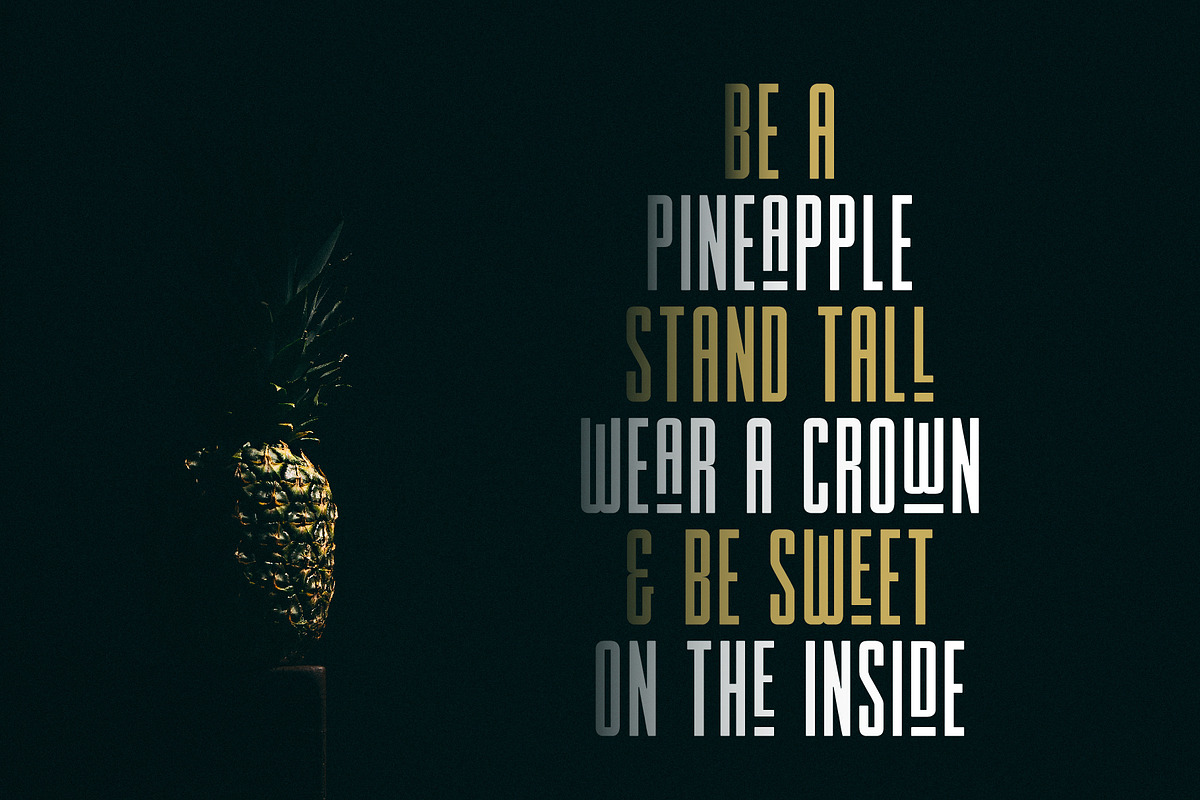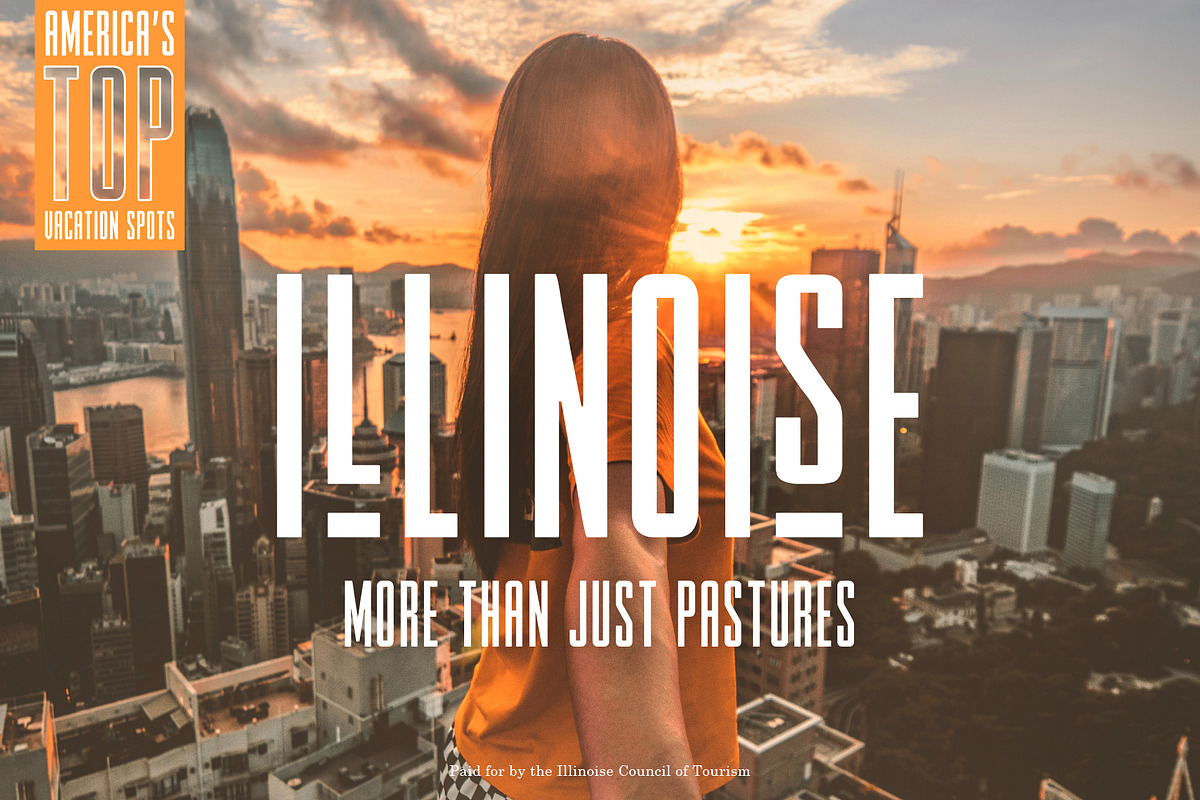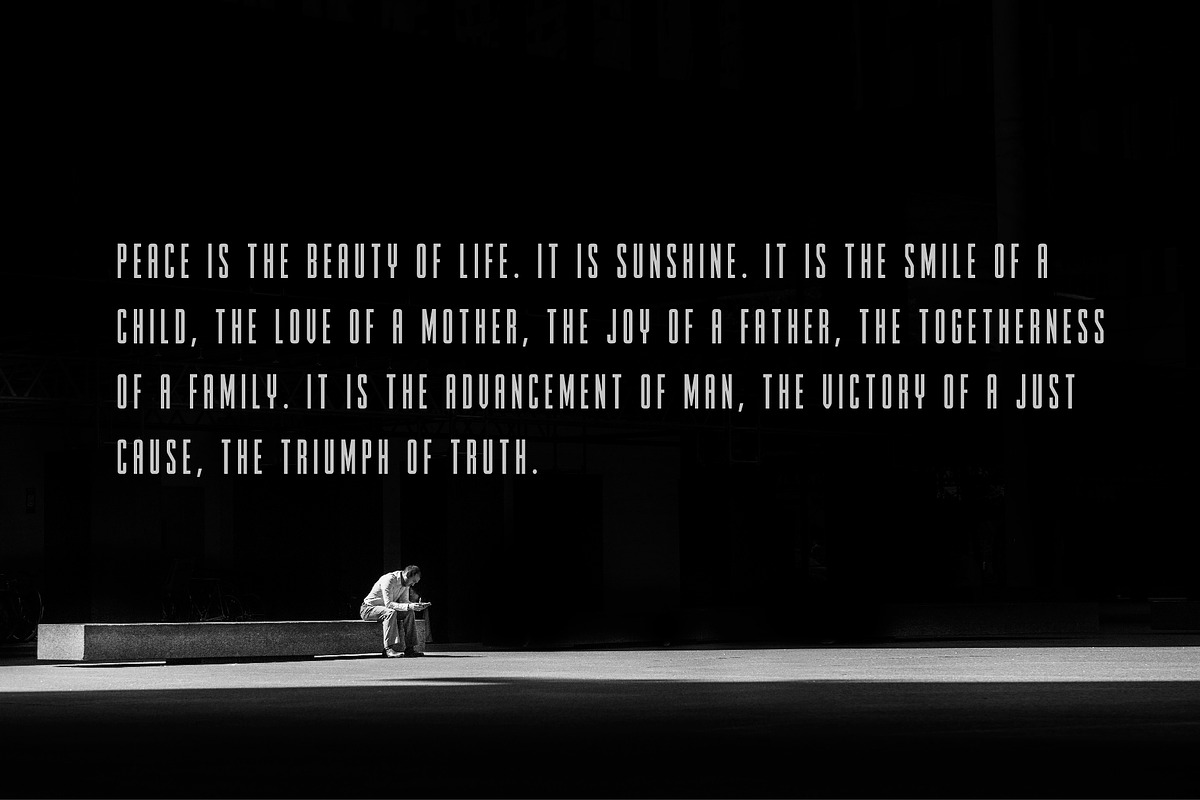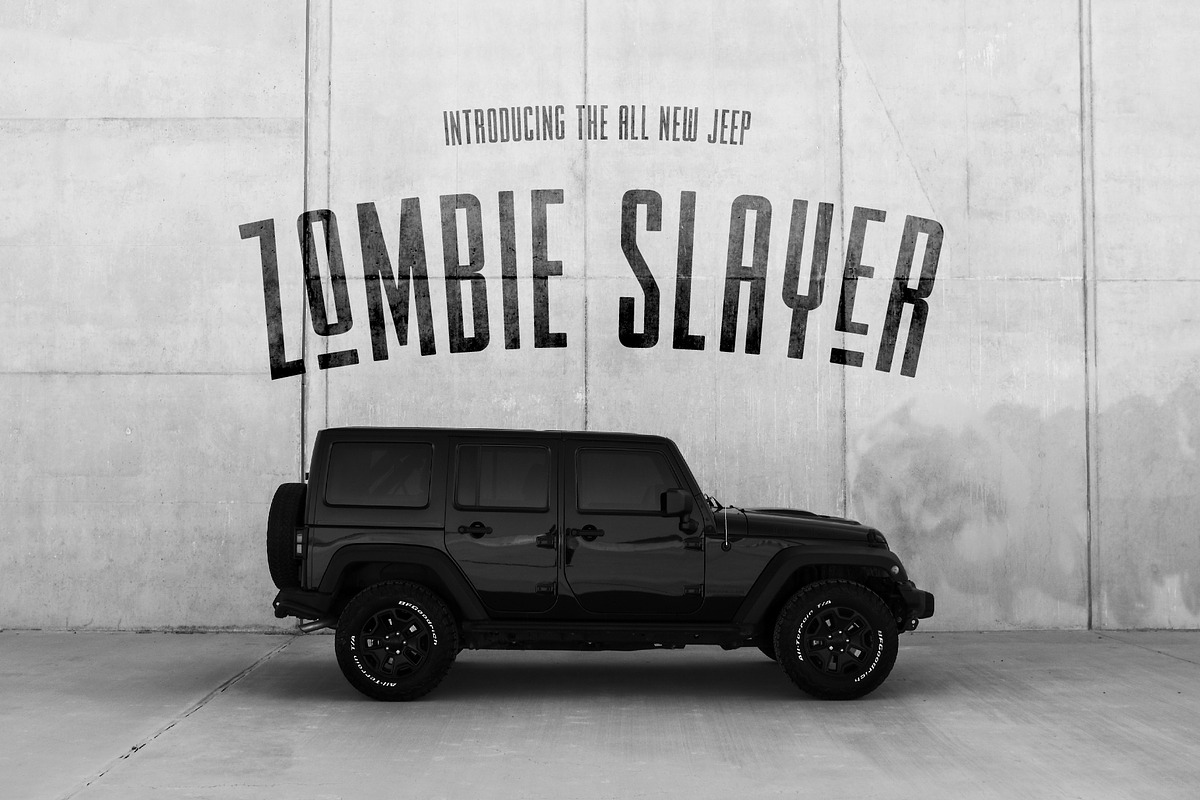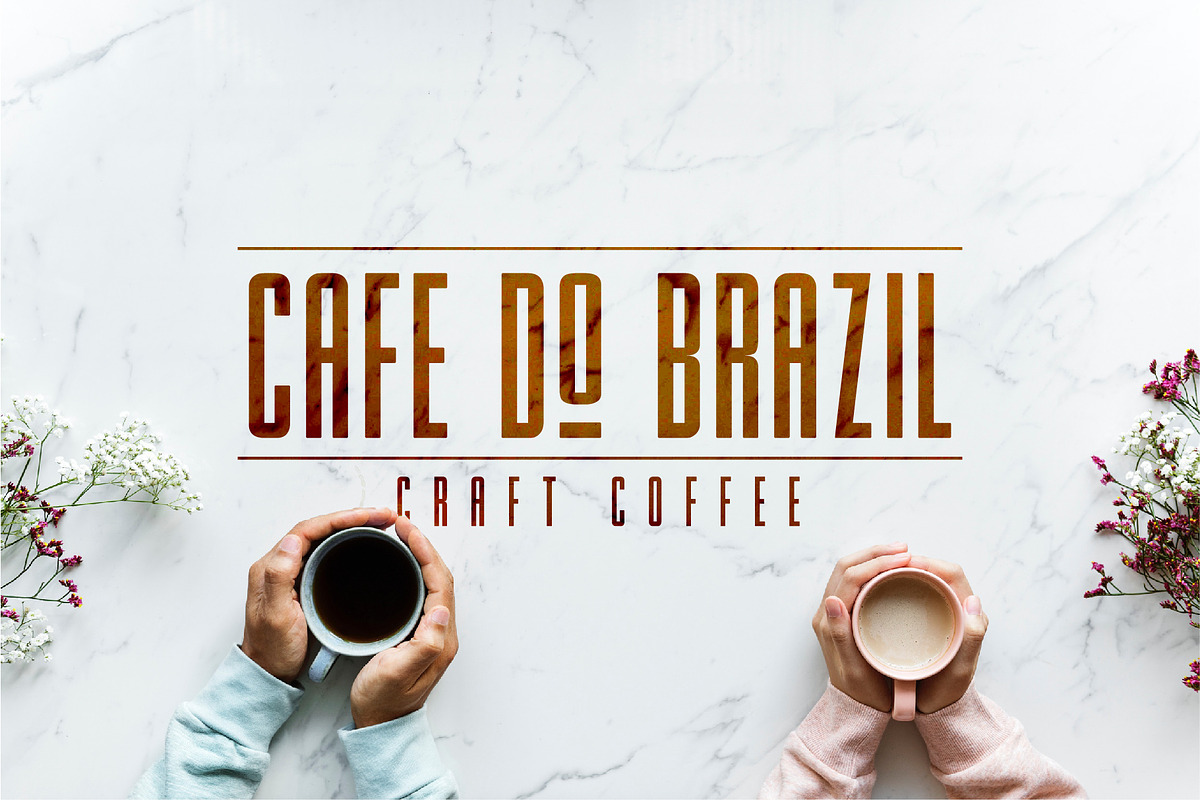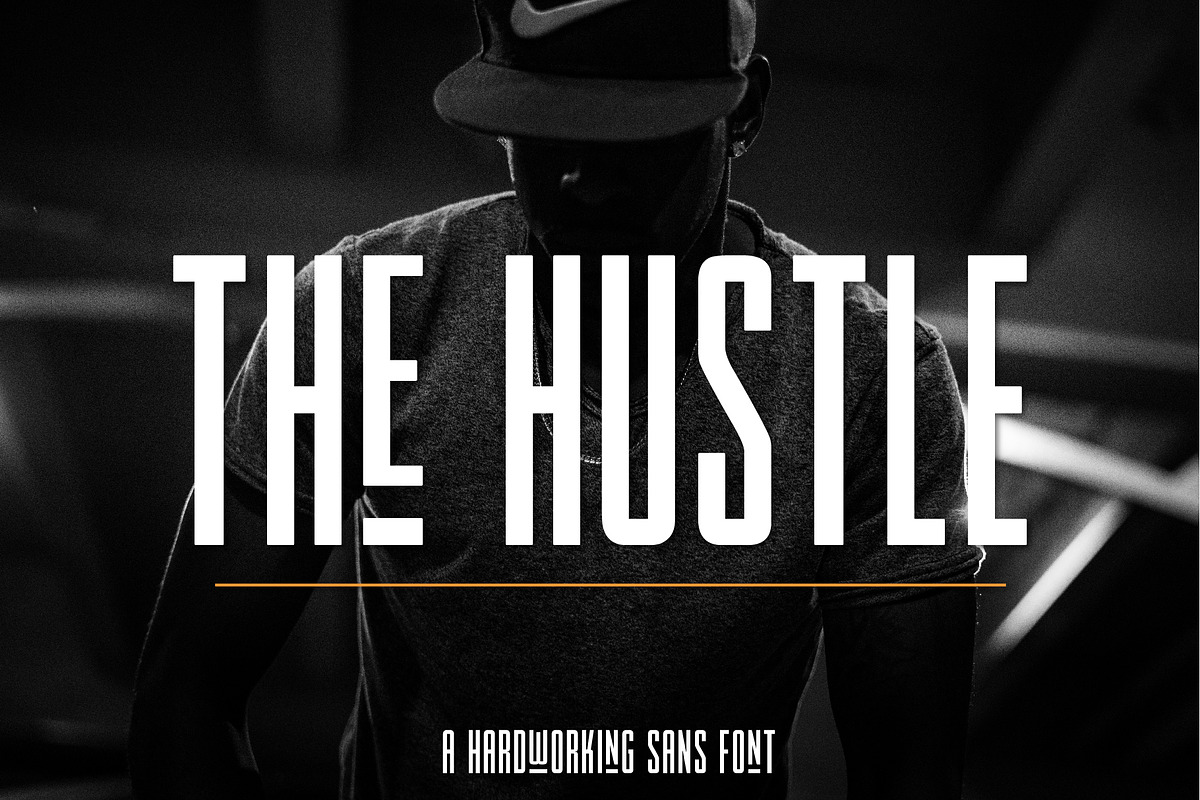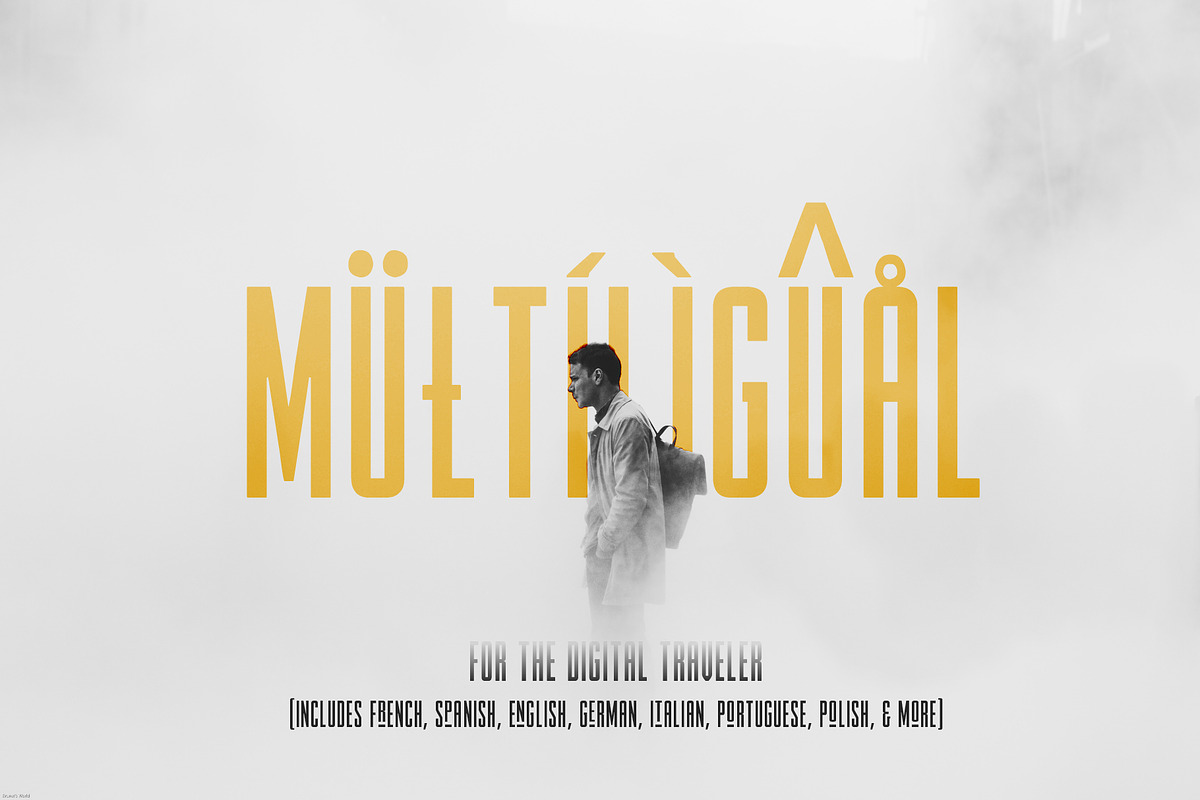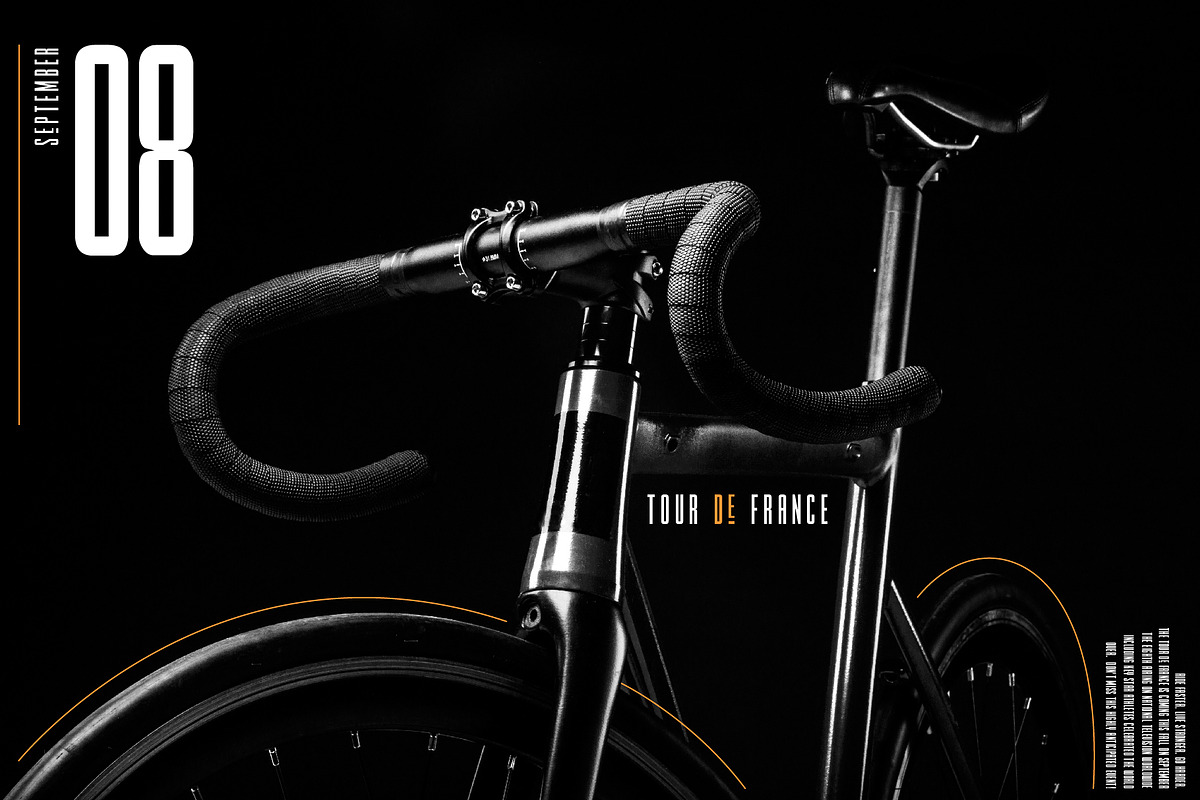
The Hustle Font
The Hustle is a font full of grit and determination, just like you! It's a new industrial style sans serif perfect for logo creation, advertisements, apparel, and more! The lowercase letters are filled with extra tall characters. The uppercase letters unlock the underlined characters. Mix-n-match these to create beautiful contrast in your designs.
Over 100 Bonus Glyphs including International Language Support (English, French, Spanish, German, Polish, Italian, Portuguese, Latin, & More)